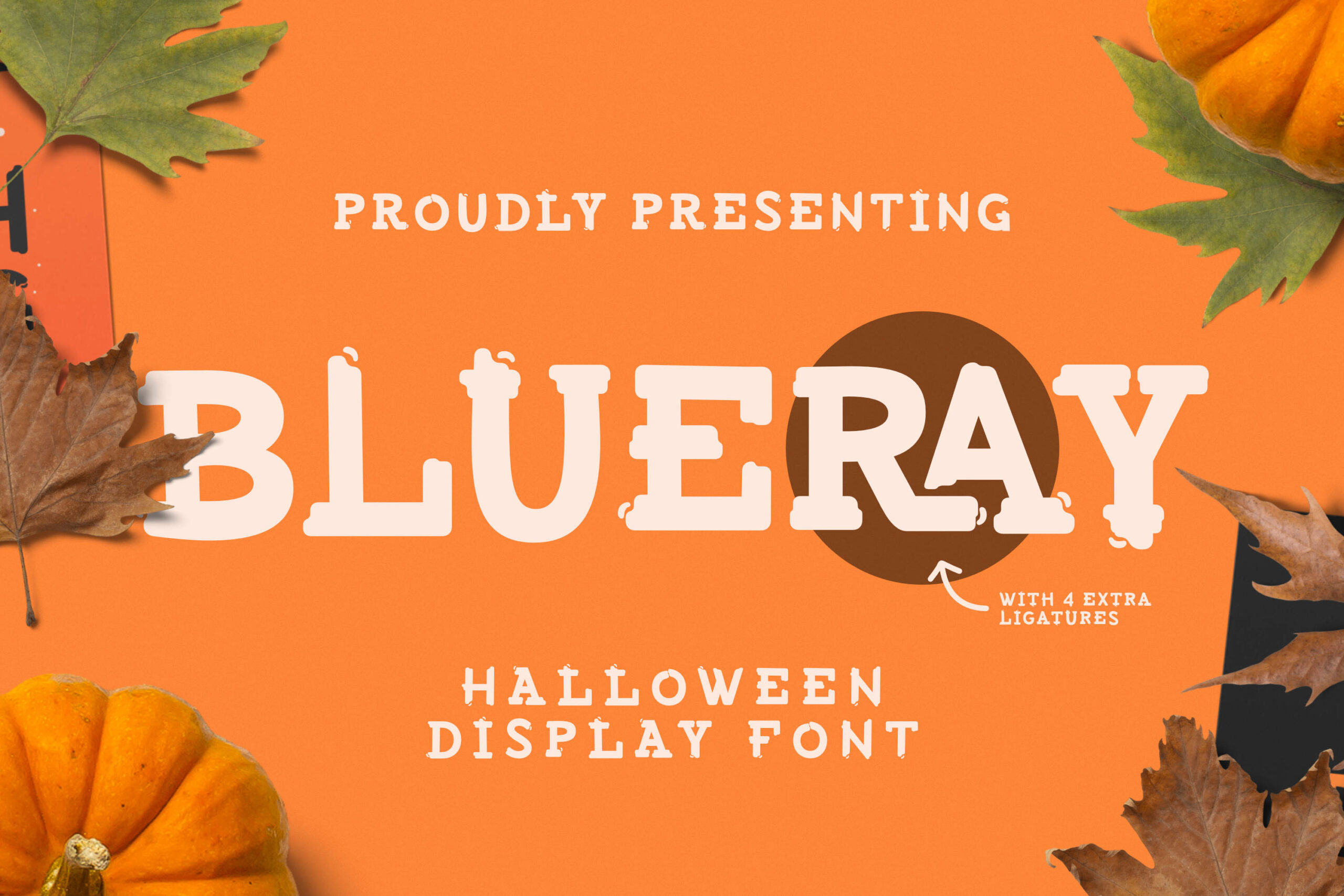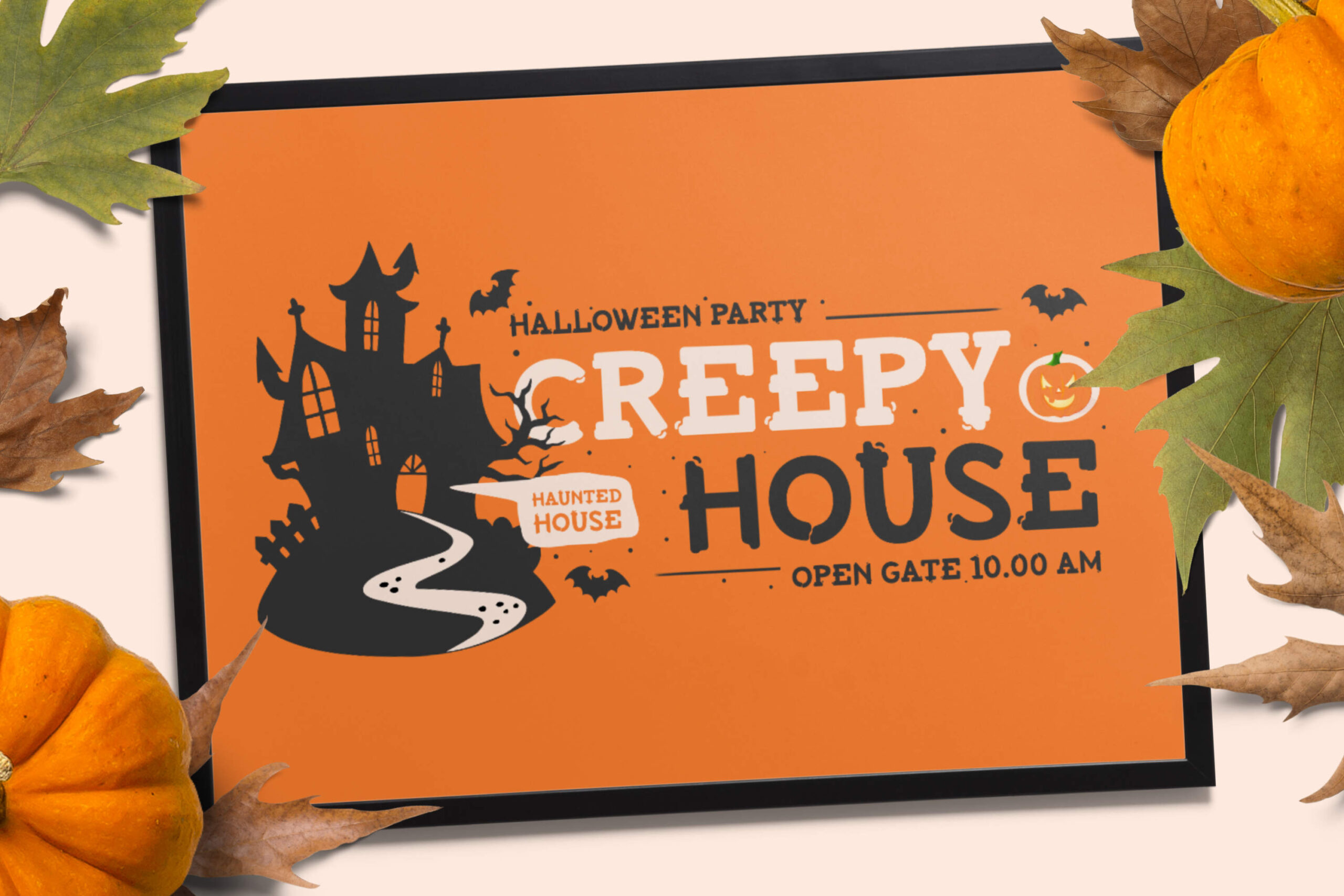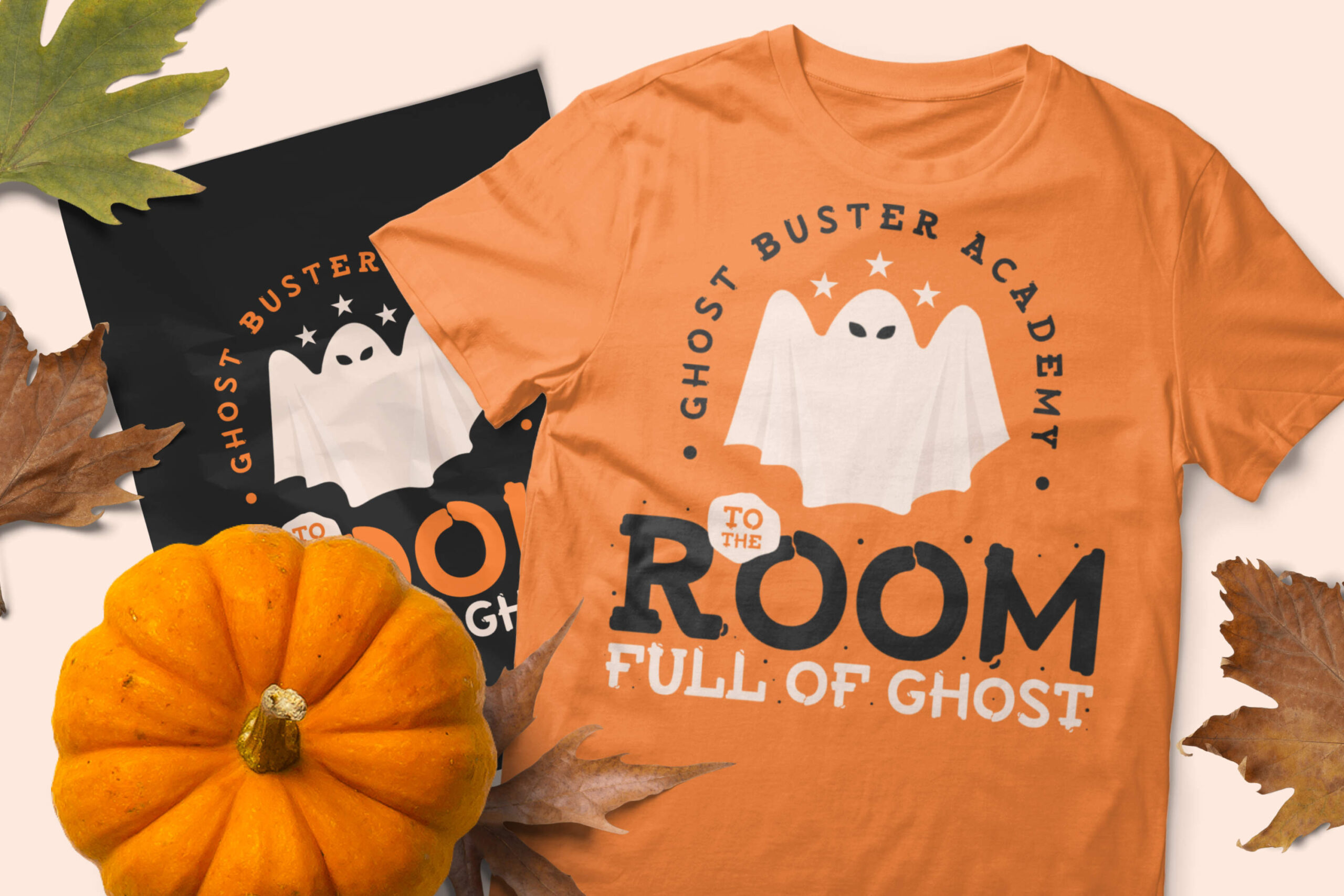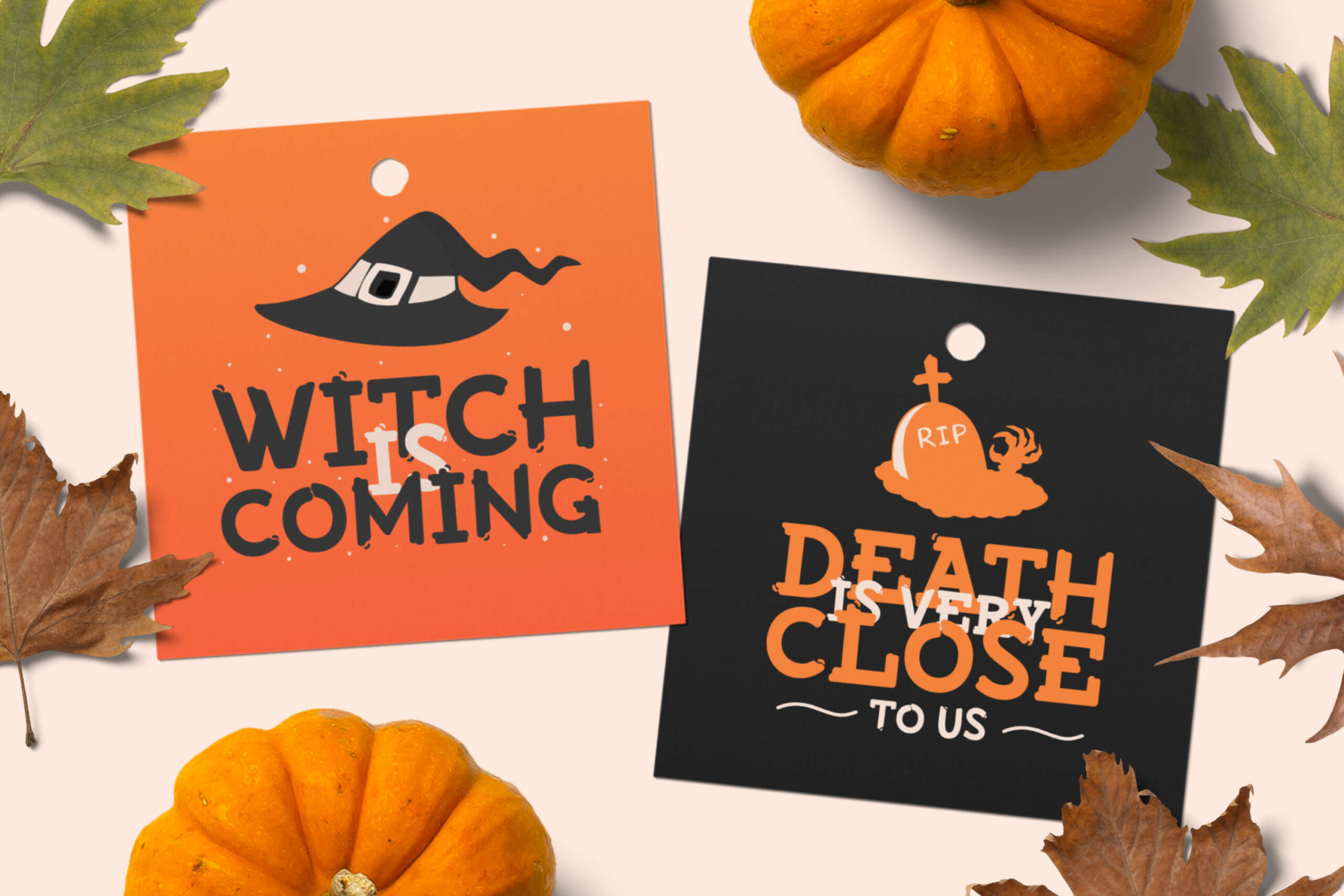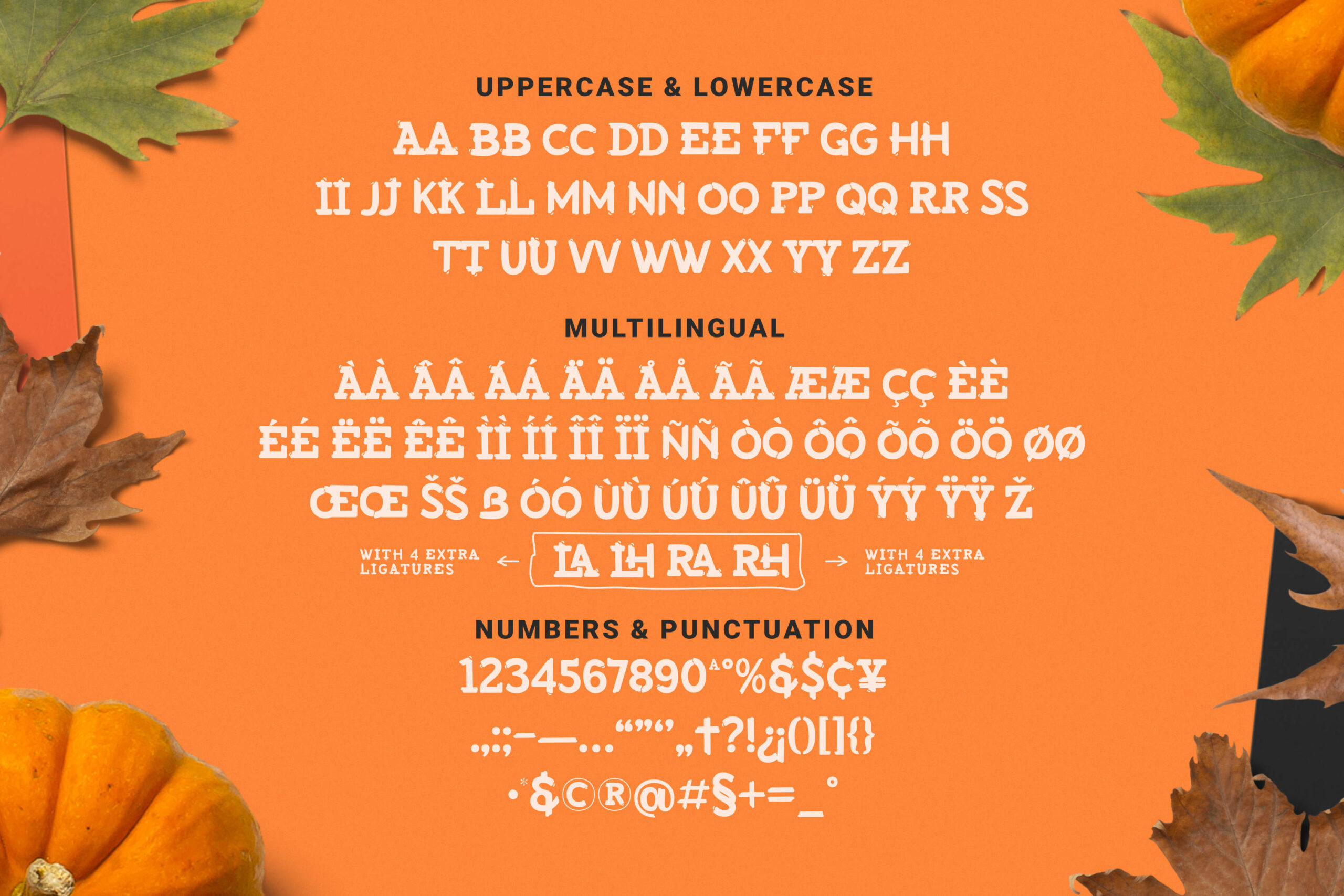
Blueray is a bold and quirky Halloween display font that captures the spirit of spooky celebrations with a touch of playful charm. Each character is carefully crafted with irregular, cartoonish serif shapes and subtle drips or distortions, making it perfect for haunted house posters, trick-or-treat invites, party banners, or any seasonal merchandise. The font includes uppercase, lowercase, numerals, punctuation, multilingual support, and four fun ligature extras for added visual interest.
With its retro-styled slab serif look and Halloween-themed flair, Blueray brings personality to your designs while maintaining great legibility. Whether used for packaging, T-shirt design, greeting cards, or signage, it evokes a sense of festive mischief and childlike excitement. Embrace its eerie yet fun-loving essence to create standout visuals this Halloween season.